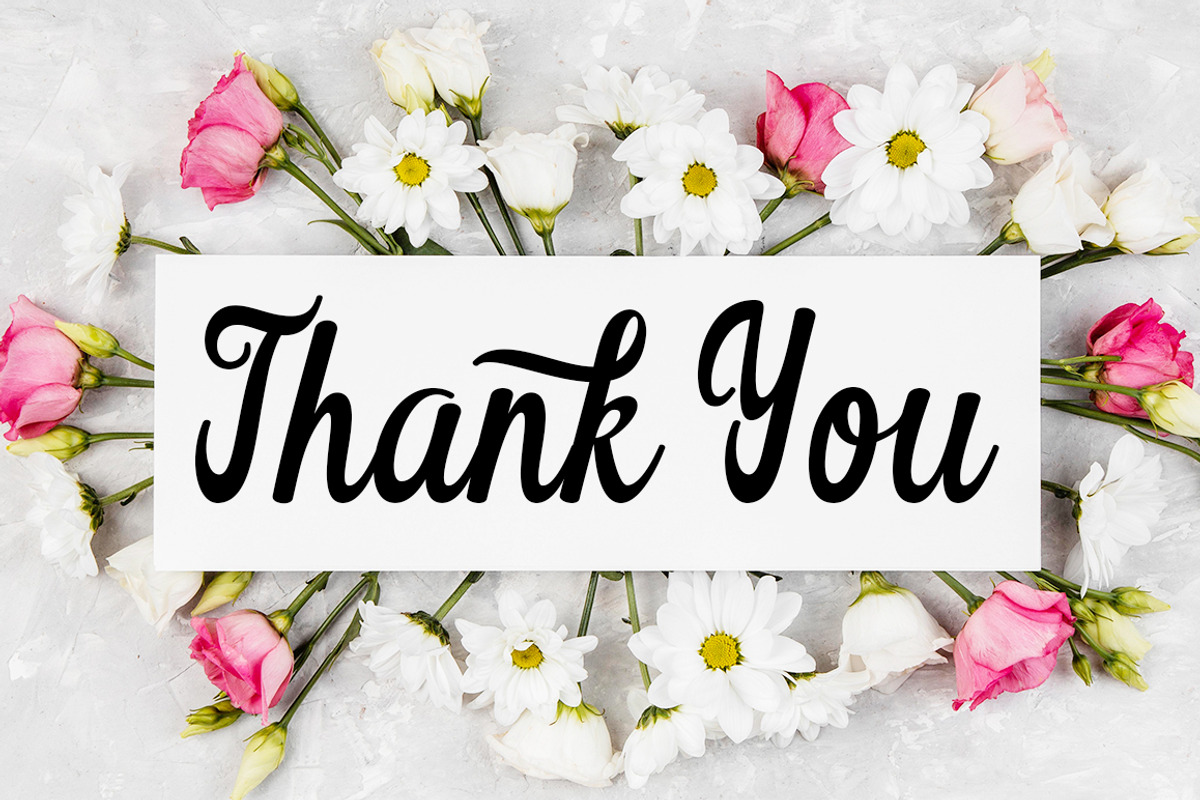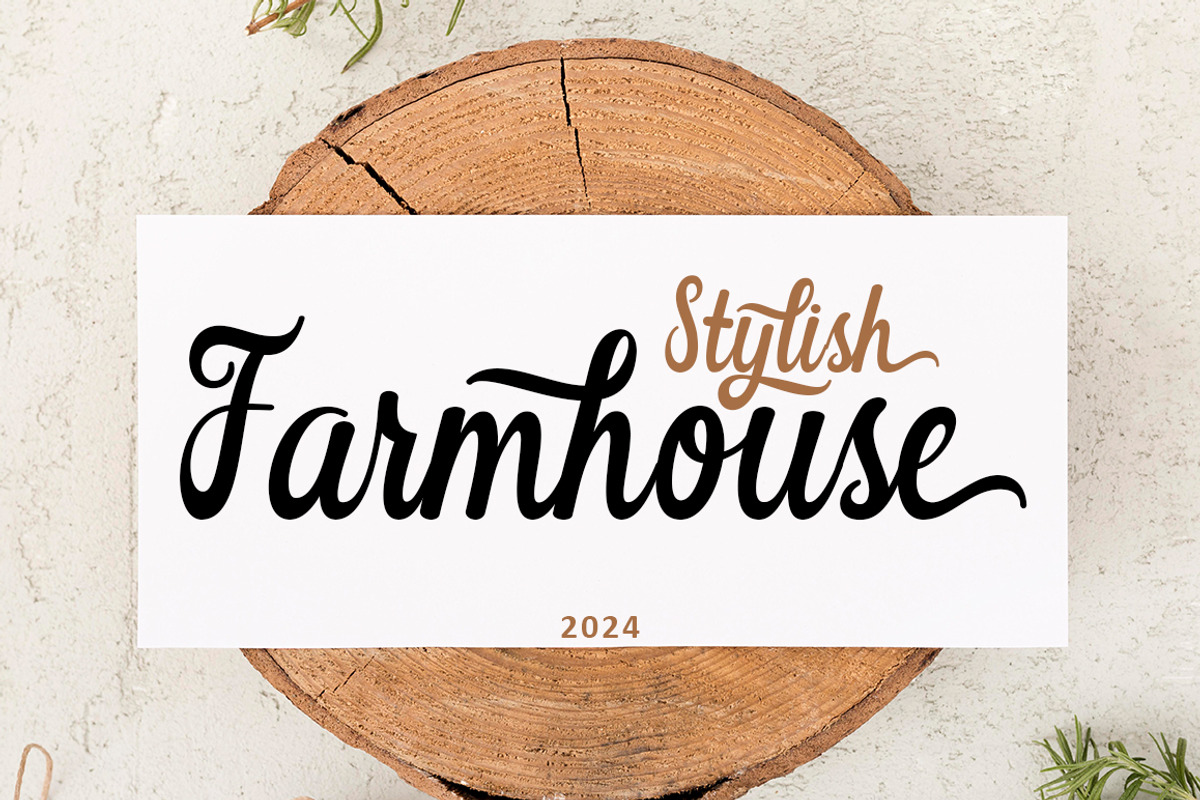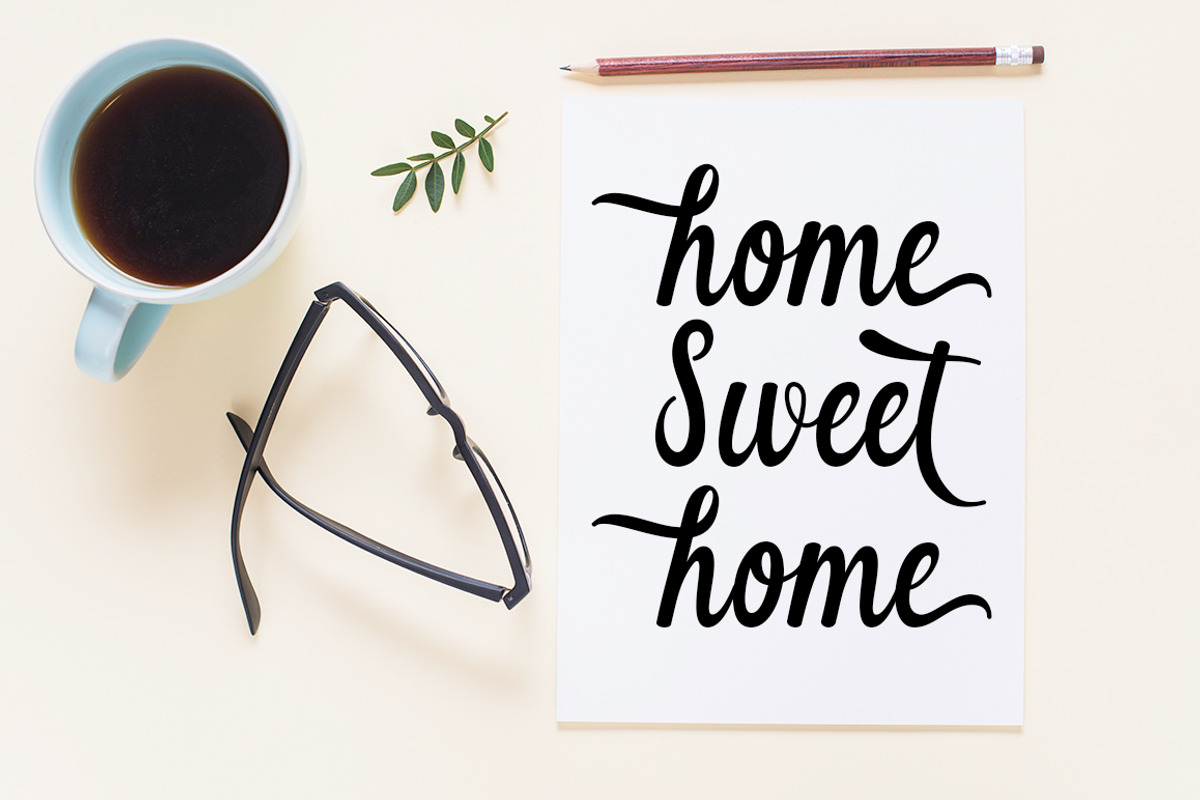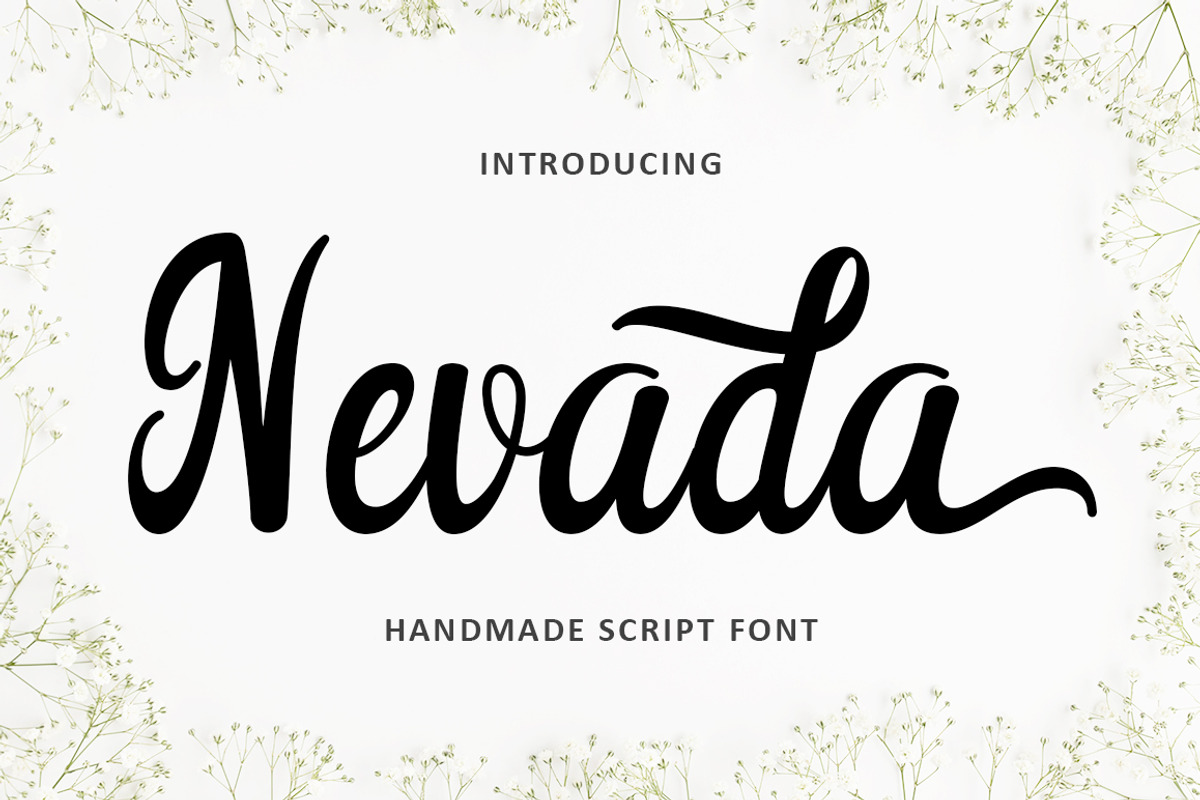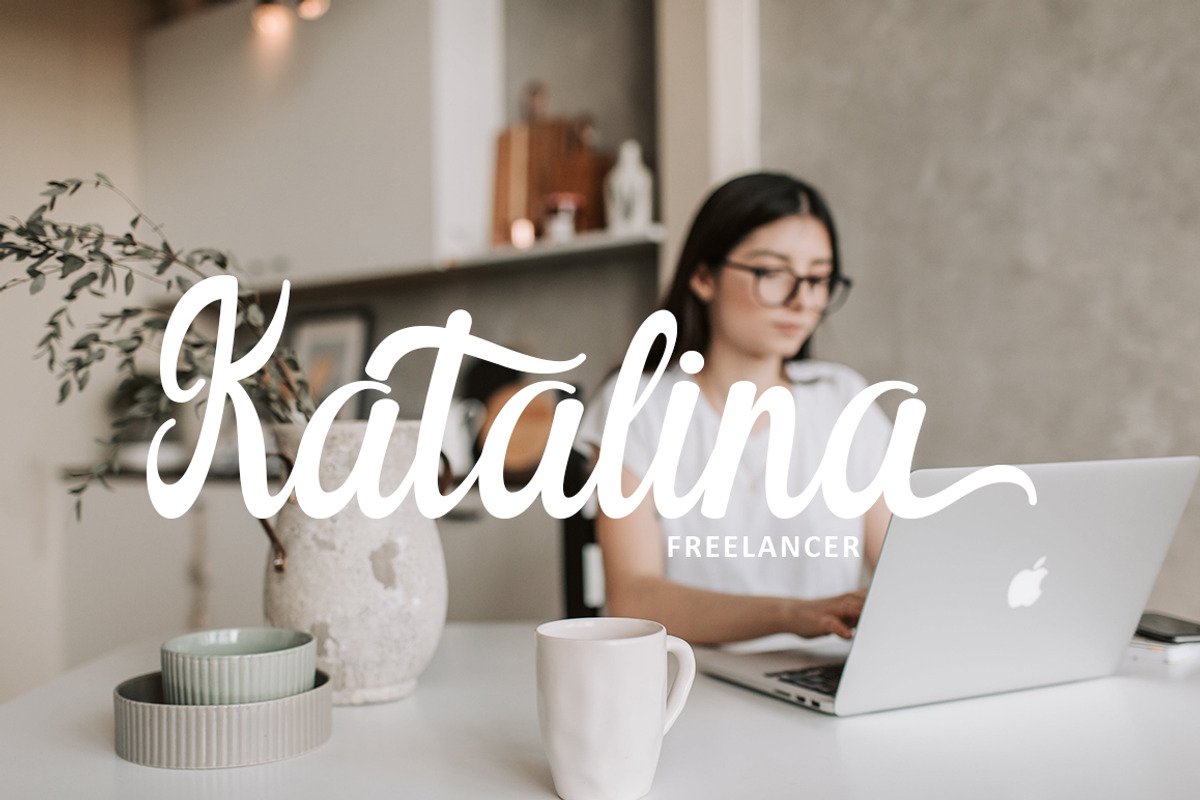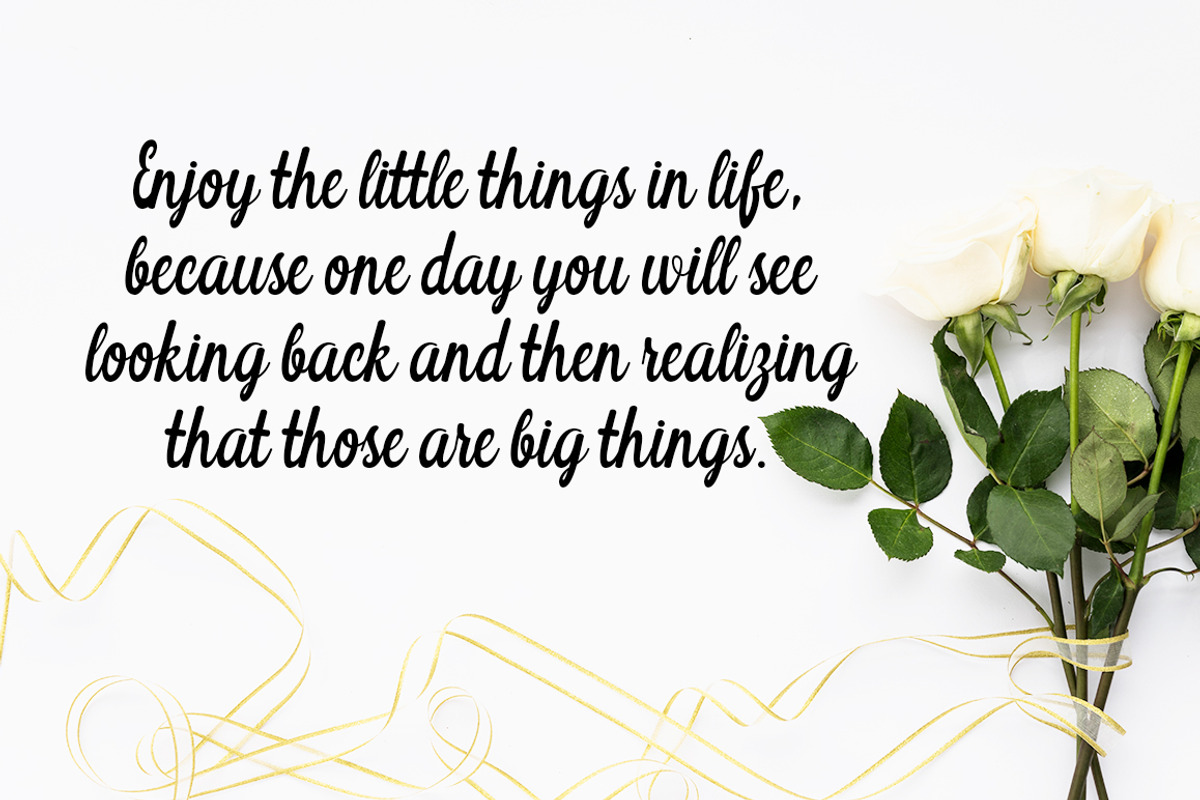
Nevada – Handmade Script Font
Nevada – Handmade Script Font is a clean and elegant handwritten typeface that combines natural flow with a modern touch. Designed with smooth curves and slightly bold strokes, this font creates a warm, organic, and stylish look perfect for a wide range of creative projects.
Inspired by natural elements and soft botanical aesthetics, Nevada delivers a fresh and calming visual feel. It works beautifully for branding, logos, packaging, social media, wedding designs, and lifestyle content.
Whether you're creating minimalist branding or elegant feminine designs, this font adds a natural handwritten charm that feels both modern and timeless.
Clean and smooth handwritten script Natural and organic style Slightly bold and easy to read Perfect for branding and modern design Suitable for print and digital projects